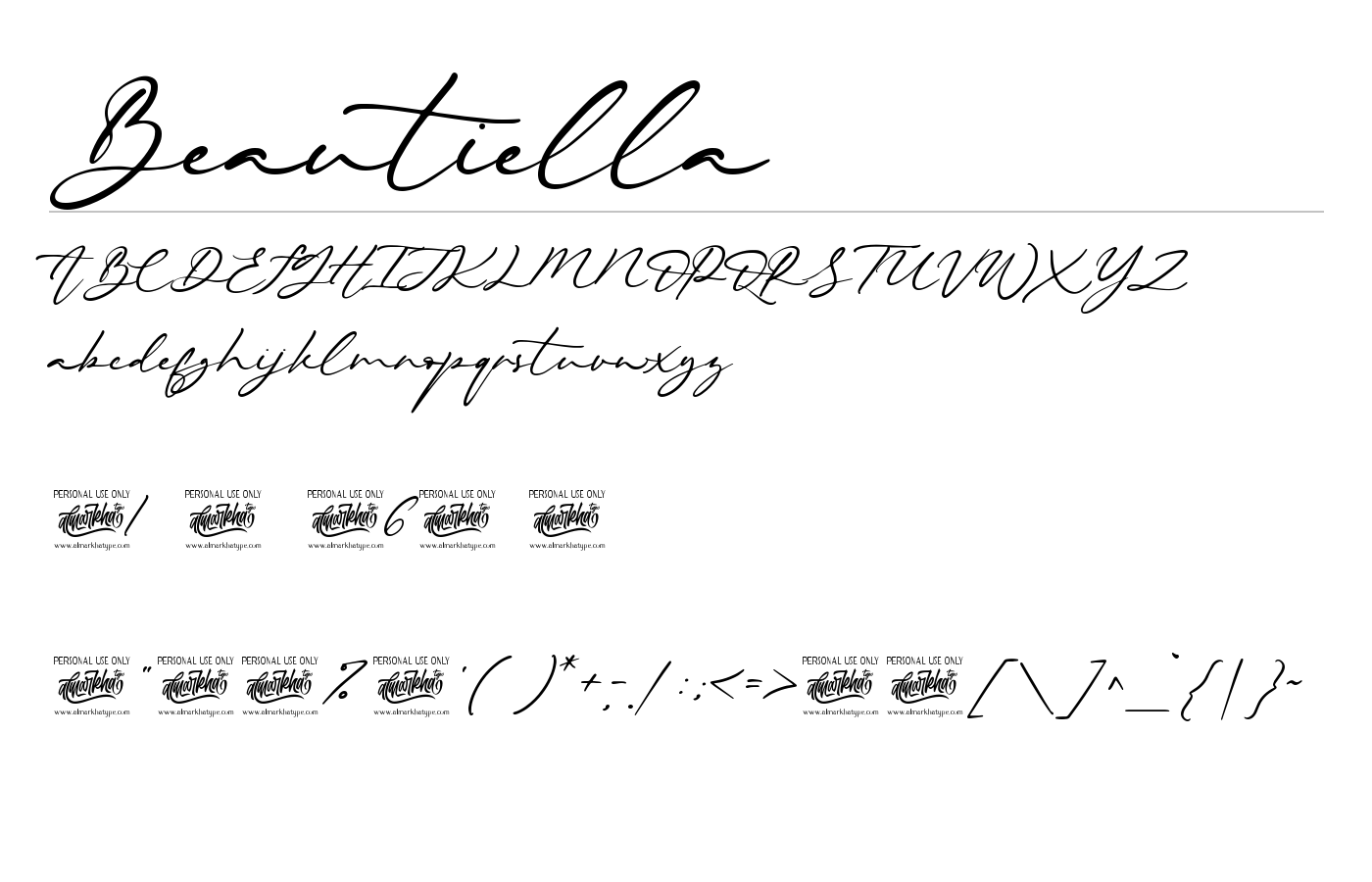
Beautiella is an elegant, modern script font characterized by its delicate, flowing strokes and a natural handwritten feel. It combines fine, thin lines with smooth curves, creating a light and graceful impression perfect for adding a personal, sophisticated touch to branding, invitations, and stylish editorial designs. This font shines in projects that seek warmth and refinement with a contemporary flair.
| Designer | Almarkhatype Studio 2021 - Malik - Ghazi |